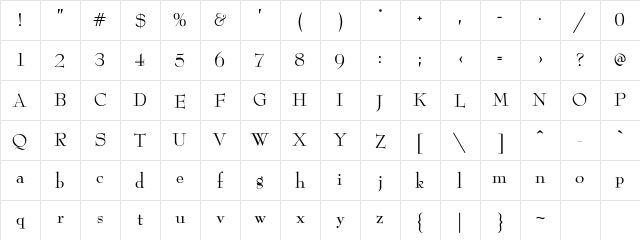
ReedPlain Regular
Design Context for ReedPlain
ReedPlain is a composed and adaptable typeface that performs quietly and consistently across a wide range of design contexts.
Pro Tip: Use ReedPlain in both headline and body roles to test its range before committing to a single application.